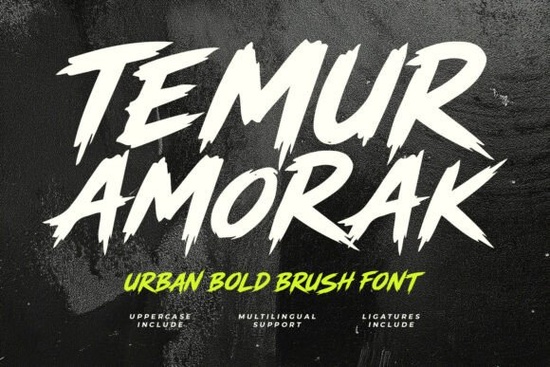
If you're working on a design that needs to feel loud, fast, and unapologetically bold, Temur Amorak Urban Bold Brush Font might be exactly what you’re looking for. This hand-drawn brush font brings a raw, energetic vibe perfect for projects where subtlety isn’t the goal. Whether you’re designing merch for a local band, creating thumbnails for a gaming channel, or crafting posters for a streetwear pop-up, Temur Amorak delivers visual punch without needing extra effects.
What sets this font apart is its aggressive stroke work. Unlike smoother brush scripts, Temur Amorak features sharp, jagged edges and uneven ink flow that mimic real marker-on-concrete energy. It’s all uppercase, which keeps the impact consistent, and it includes ligatures that help letters connect more naturally just like actual handwriting would. You also get full punctuation, numbers, and multilingual support, so it works across a range of languages and use cases.
When should you use Temur Amorak?
This font shines in contexts where attitude matters more than elegance:
- Music and event posters – especially for rock, hip-hop, or underground shows
- Gaming overlays and thumbnails – where high contrast and motion are key
- Sports team merch – think urban leagues, skate teams, or fitness brands
- Cinematic title sequences – for action, thriller, or dystopian themes
- Streetwear branding – logos, tags, and packaging that need edge
Because of its dense, textured strokes, it’s best used at larger sizes. Avoid tiny body text it’s a display font through and through. Pair it with clean sans-serifs (like Helvetica or Montserrat) to let it dominate without visual competition.
How does it compare to other urban-style fonts?
If you’ve browsed Creative Fabrica’s display fonts before, you might recognize similar energy in options like Graffiti Impact, which leans more into classic spray-can lettering, or School House, which mixes vintage chalkboard vibes with modern flair. Temur Amorak sits closer to Senior Teacher in terms of hand-crafted authenticity but trades classroom nostalgia for alleyway grit.
For something completely different but still tropical and bold, Laguna Tropic offers sun-soaked curves instead of sharp angles. The choice really depends on whether your project calls for rebellion or relaxation.
The font supports multiple languages (including Western European accents), so if you’re designing for international audiences, you won’t hit character limits. The built-in ligatures activate automatically in programs that support OpenType features (like Illustrator or Photoshop), giving words like “ATTACK” or “RUSH” a more organic, connected look.
Tips for using it effectively
Because of its heavy texture, avoid placing Temur Amorak over busy backgrounds. Solid colors, gradients, or subtle noise textures work best. If you must overlay it on imagery, add a slight drop shadow or dark stroke outline to maintain legibility.
Also, don’t overuse it. One headline per design is usually enough. Its intensity fades if repeated too much. And while it’s tempting to add extra grunge effects, the font already includes that rawness sometimes less is more.
Finally, remember: this isn’t a “safe” corporate font. It’s meant to provoke a reaction. Use it when your message matches its energy confidence, speed, defiance, or urgency.